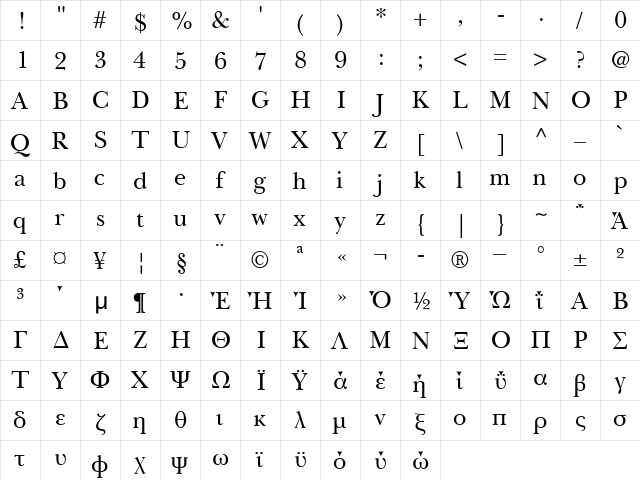
BaskervilleGreek Upright Regular
Design Context for BaskervilleGreek Upright Typeface
BaskervilleGreek Upright offers clean, dependable letterforms without strong stylistic allegiance, making it a practical choice for designers who need flexibility.